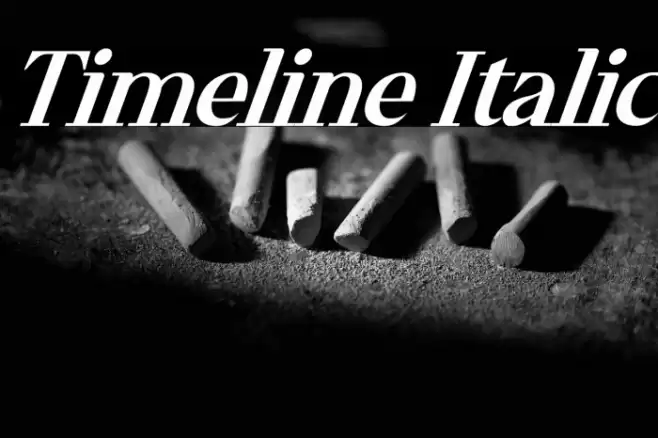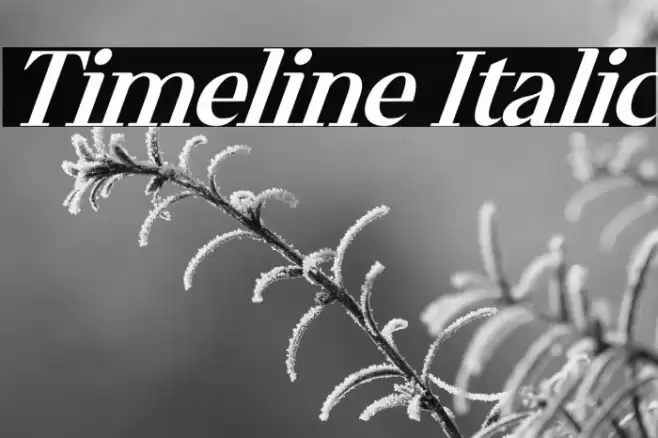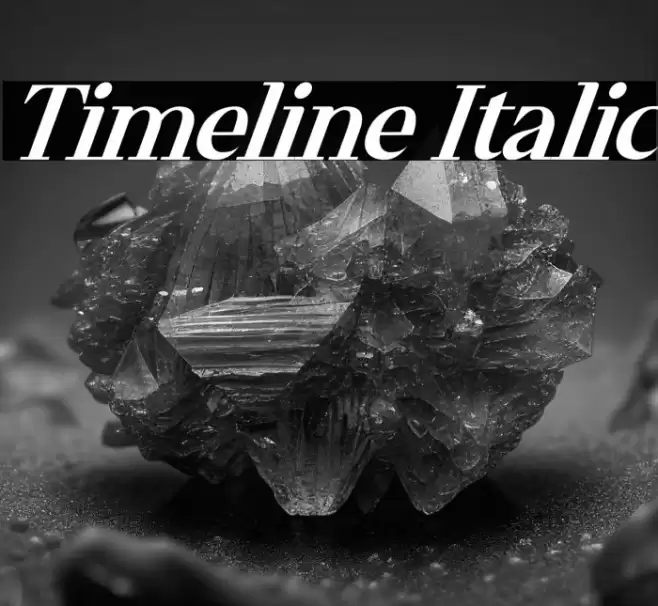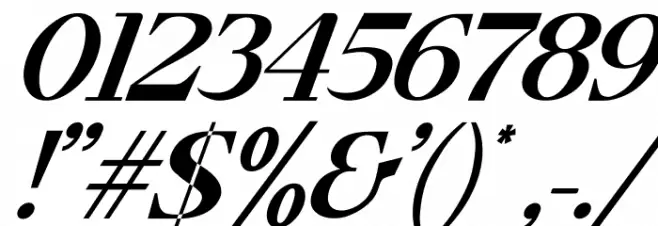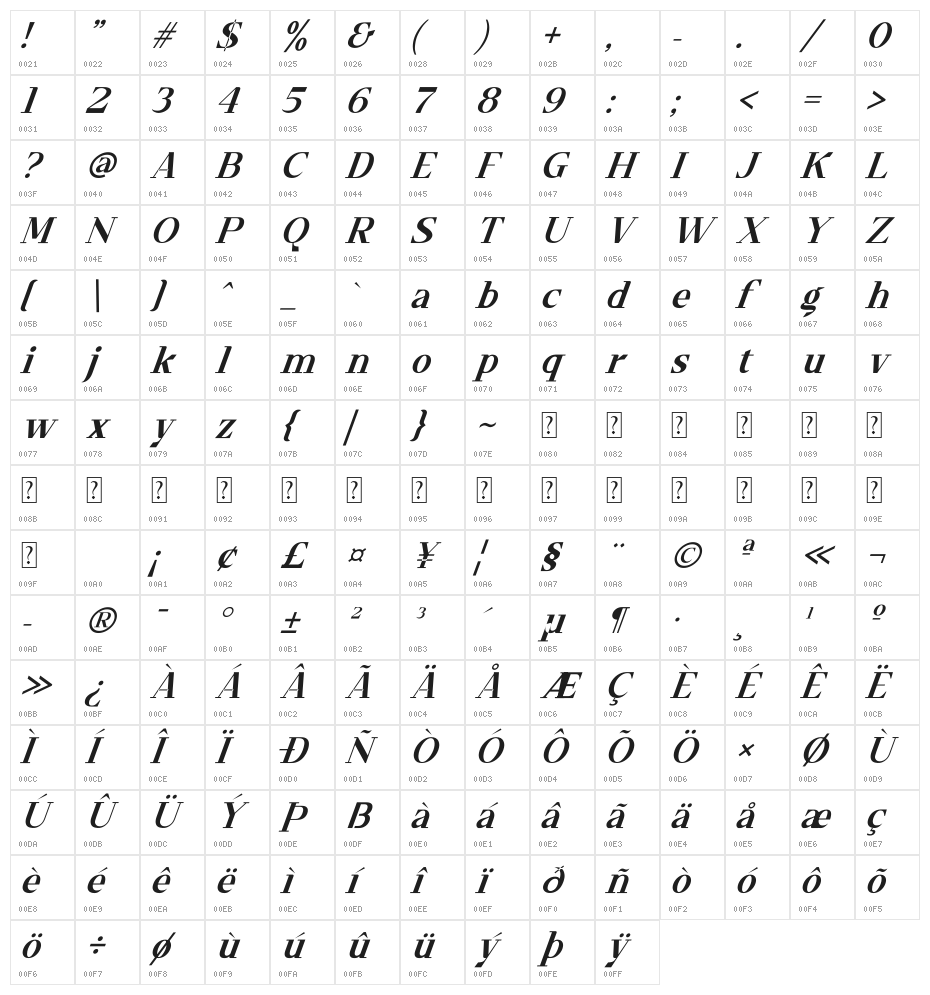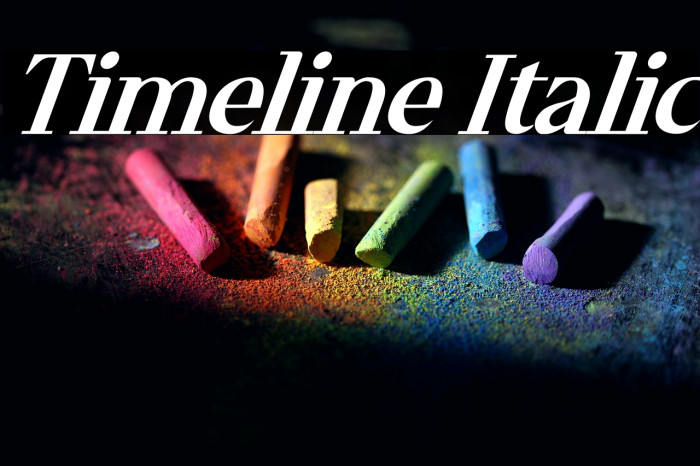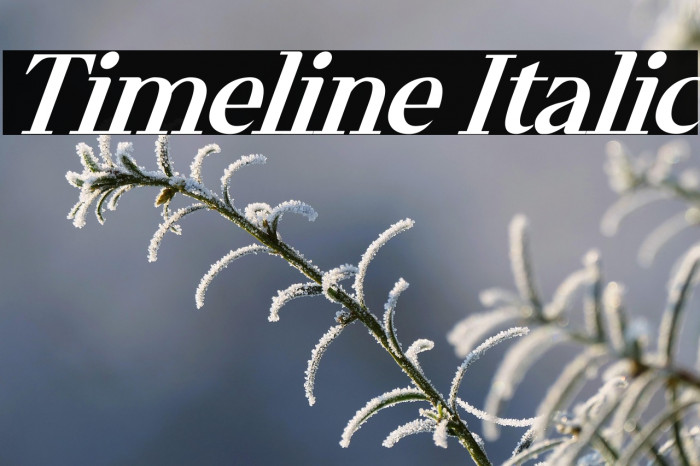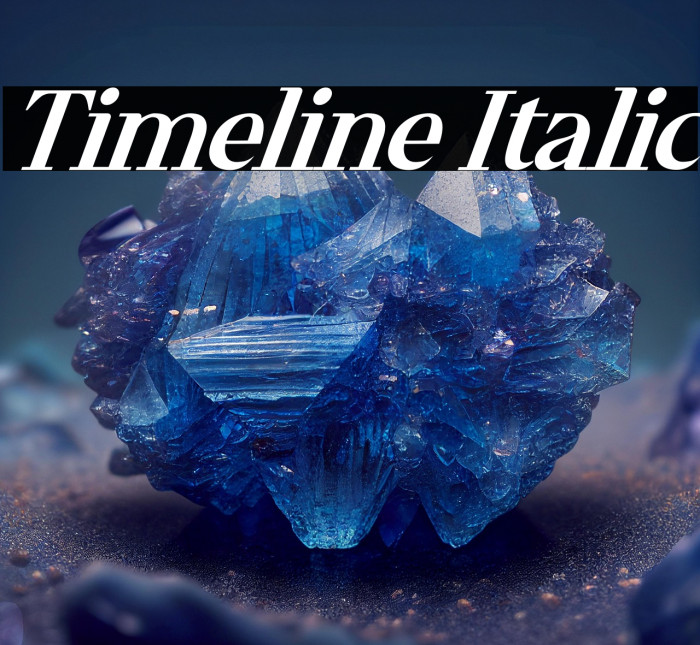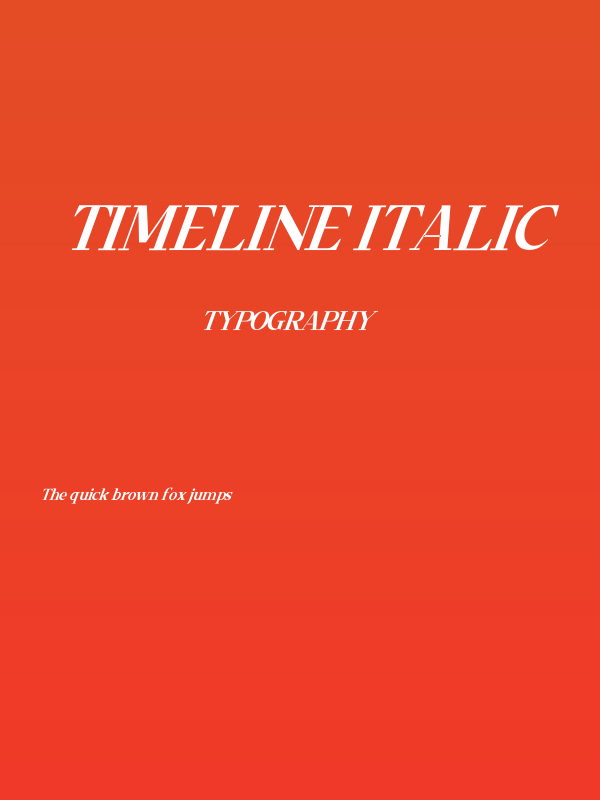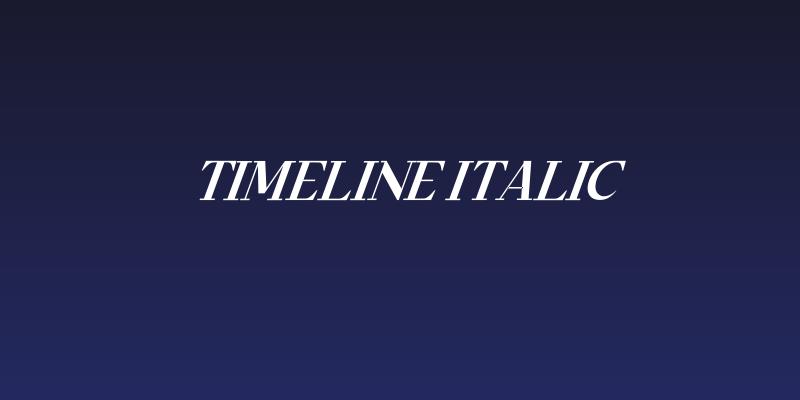
Timeline Italic Font
Timeline Italic Description
This font features a classic italic style with elegant, flowing lines and a sophisticated appearance. The letters have a slight slant to the right, giving a sense of motion and fluidity. The strokes are moderately thick, providing a balanced contrast that enhances readability while maintaining a refined aesthetic. The uppercase letters are tall and commanding, while the lowercase letters are more compact, creating a harmonious blend. The numerals are clear and distinct, matching the overall style of the alphabet. Special characters are well-integrated, maintaining the font's cohesive look.
An elegant italic font with moderate contrast and a sophisticated style from Regular fonts.
- Proposed Projects: Ideal for formal invitations, elegant branding, editorial design, and luxury product packaging.
- Overall Style: Classic